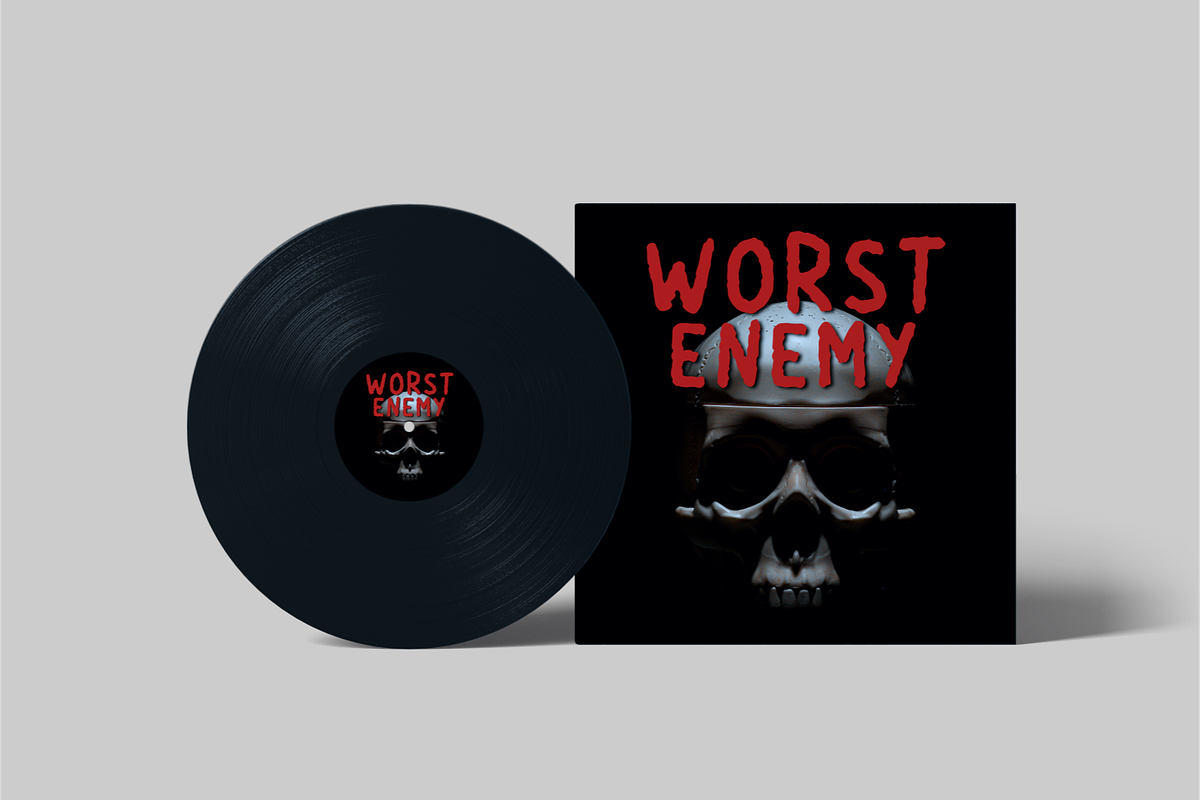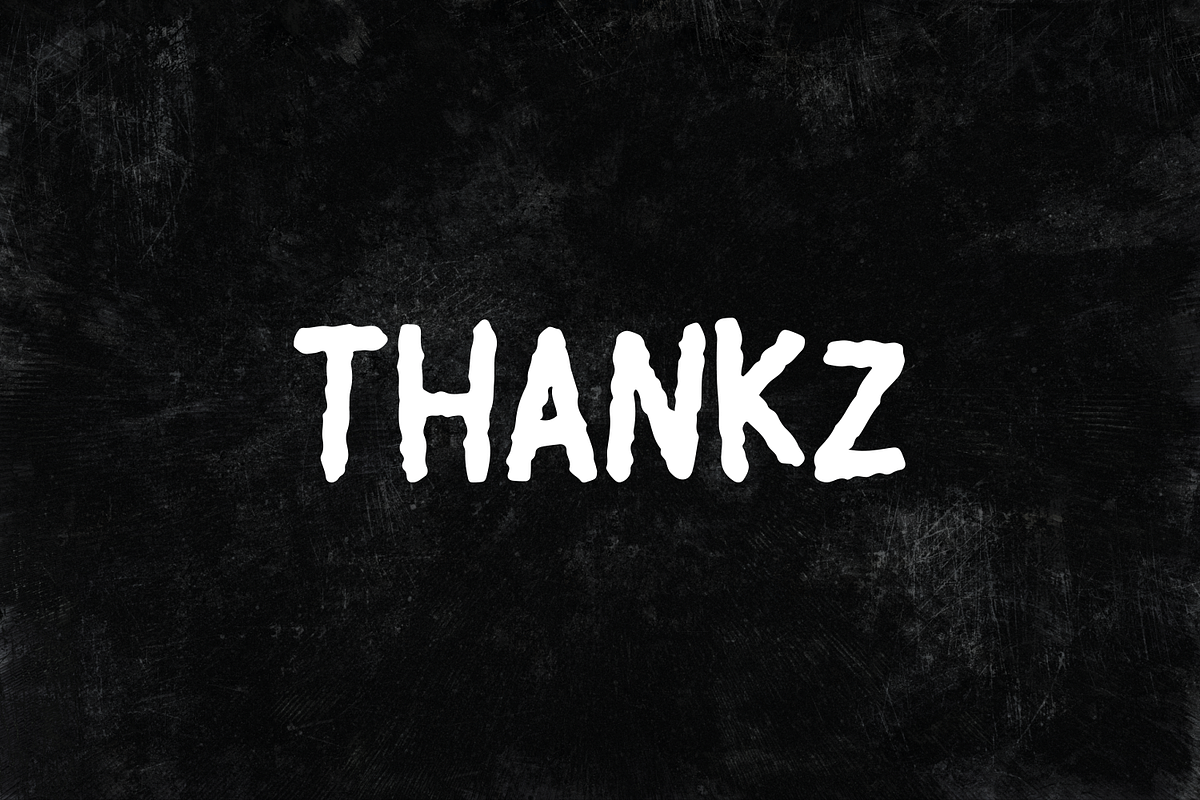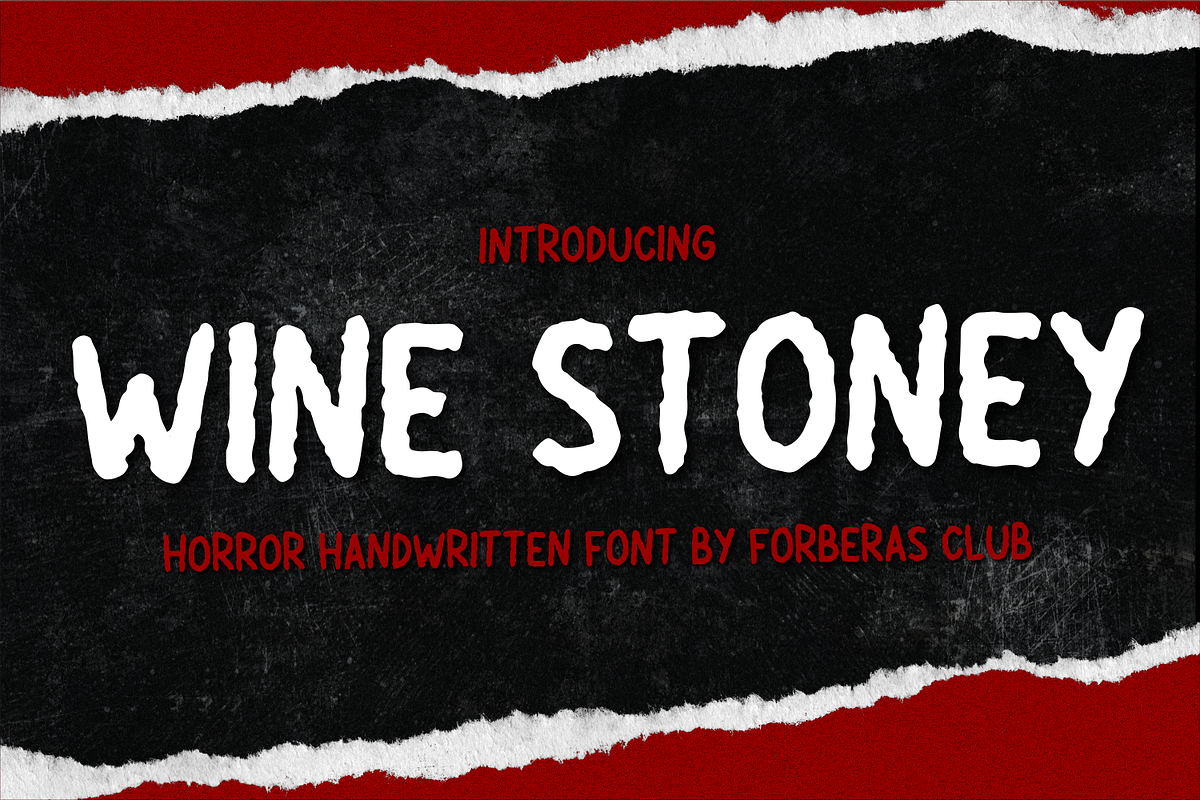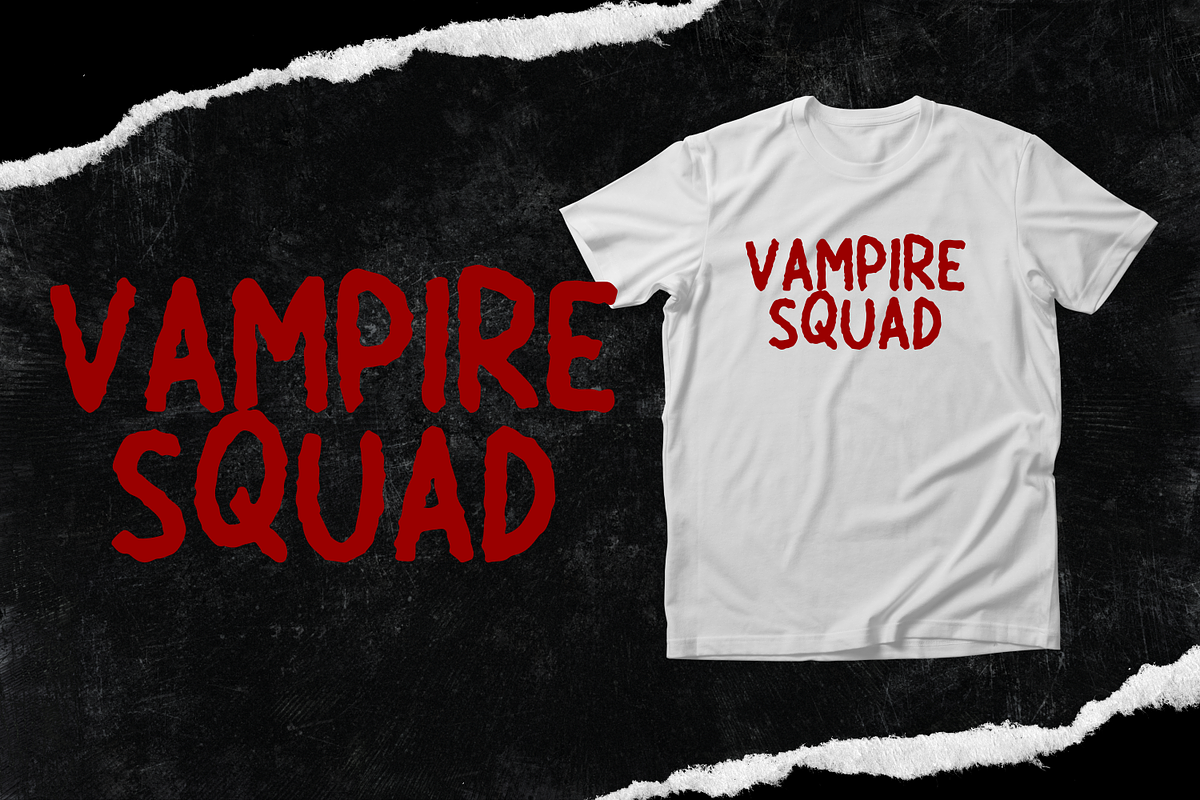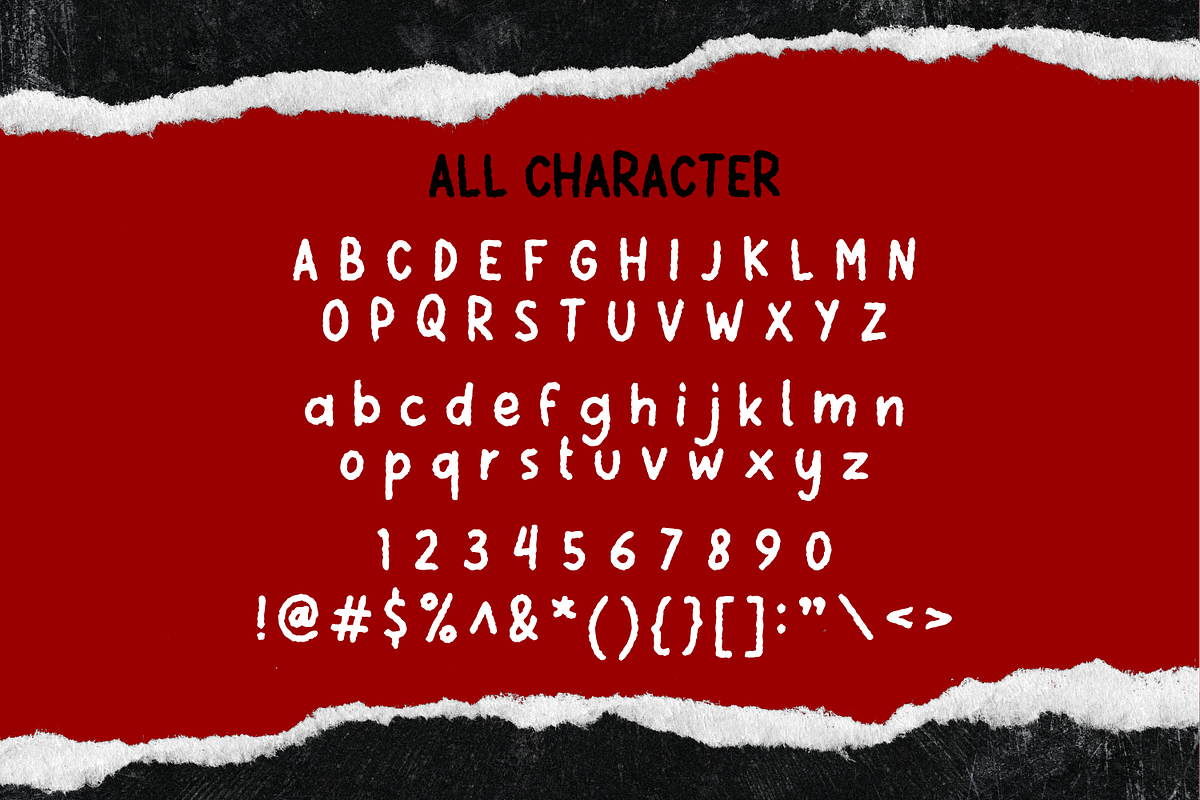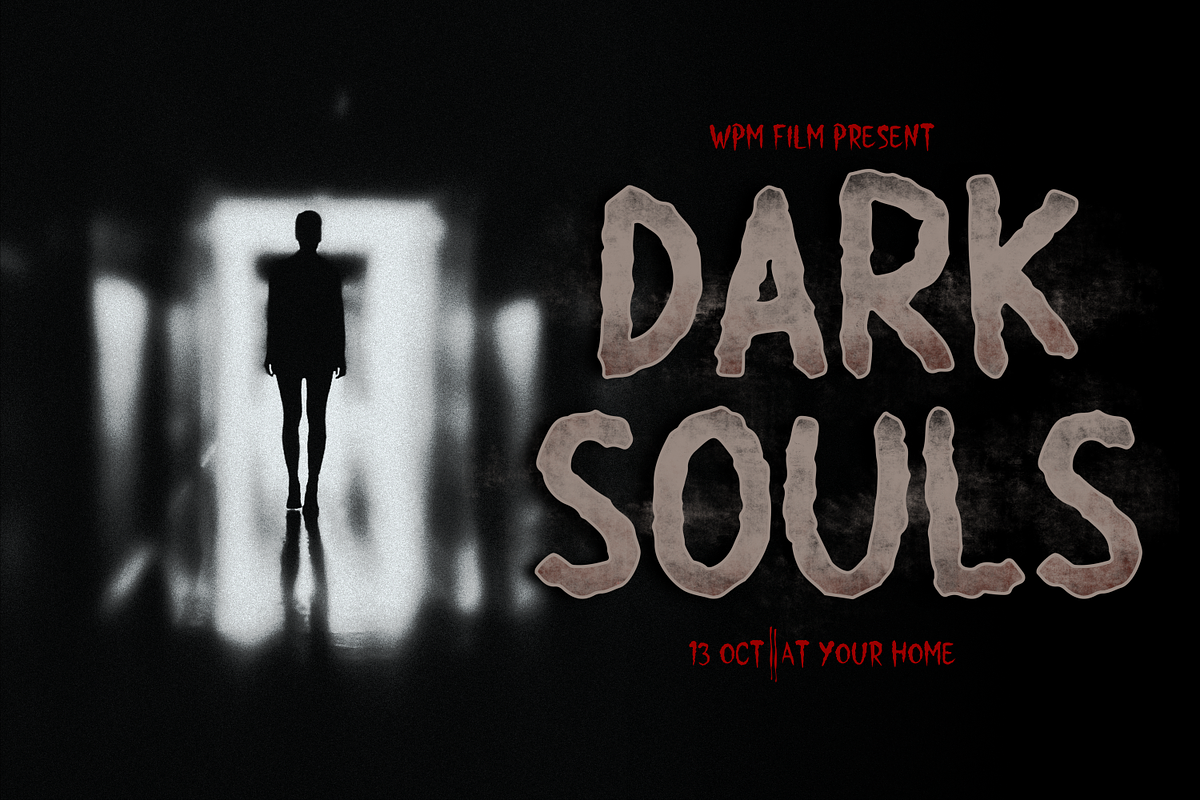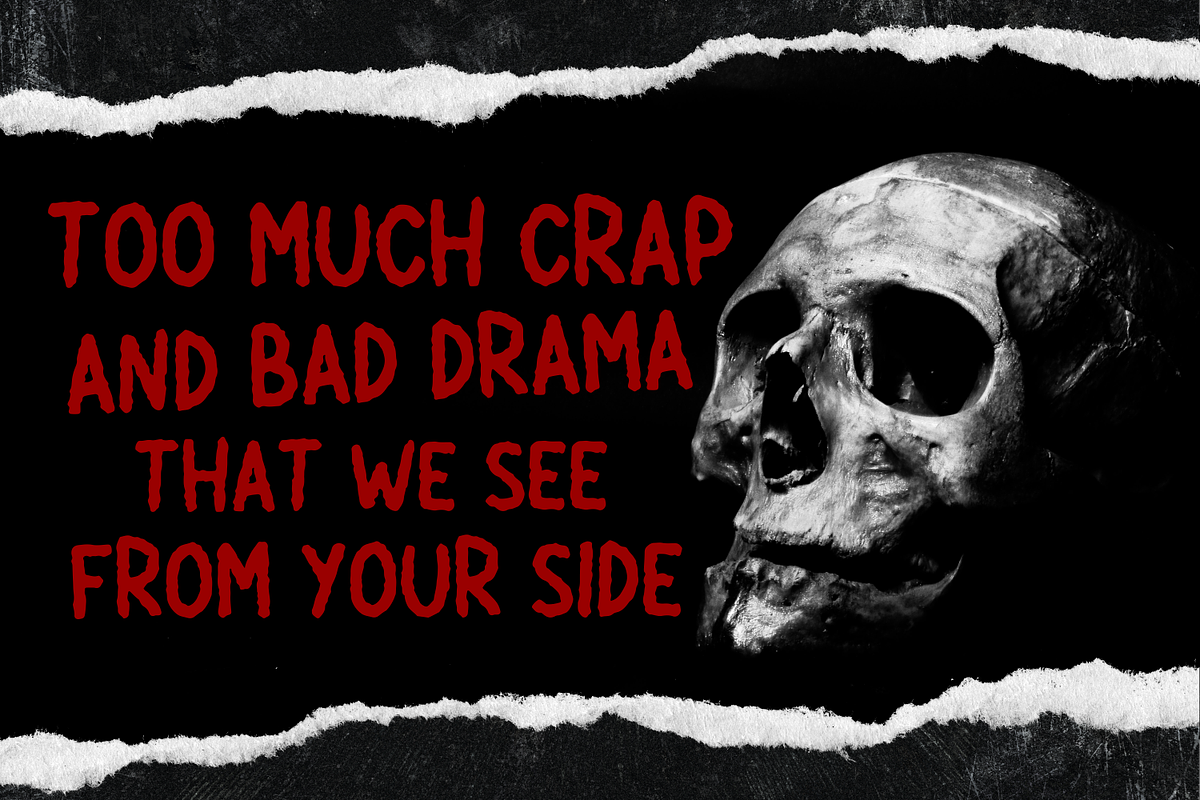
Wine Stoney
Introducing Wine Stoney by Forberas
Modern and beautiful handwritten script font! Great for wedding greeting cards, logos, branding materials, Invitation, business cards, quotes, posters, Cricut artwork and more!